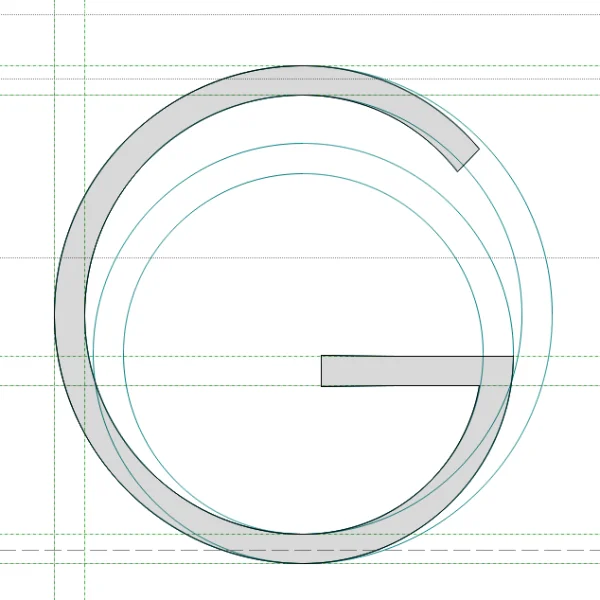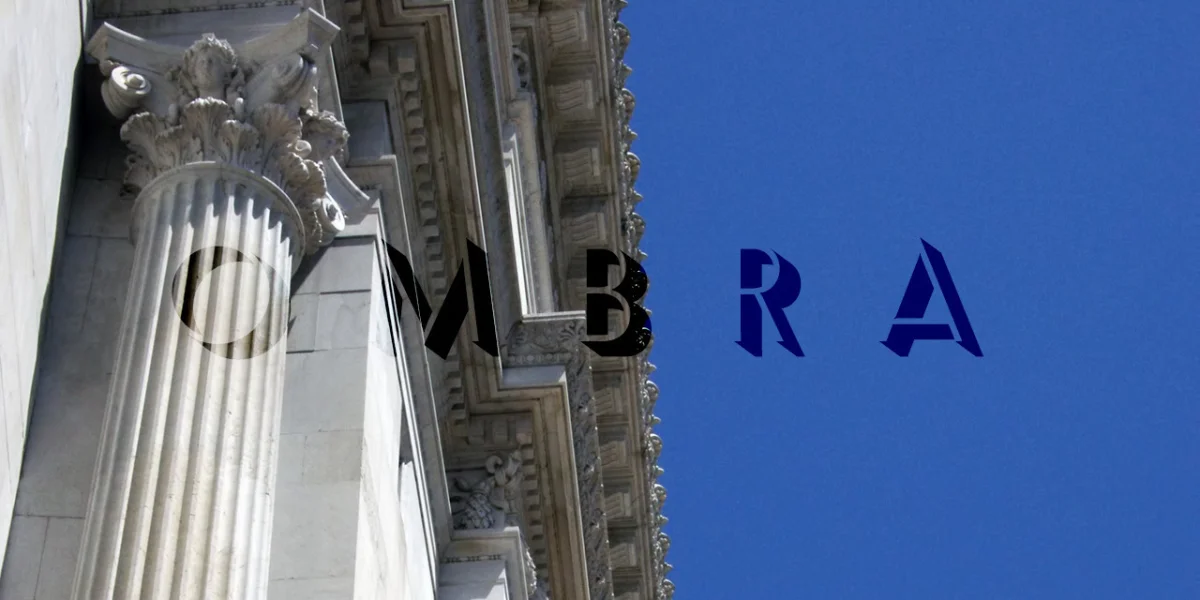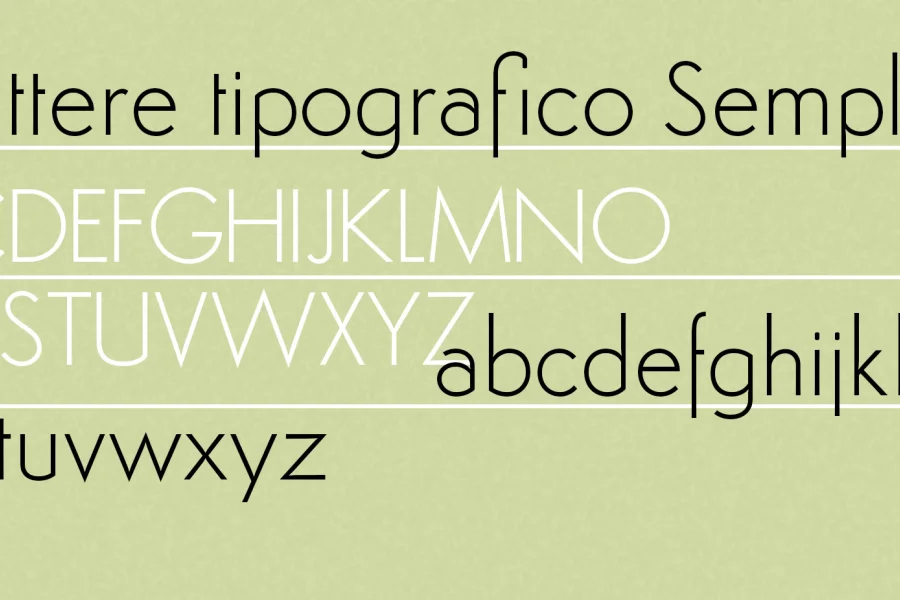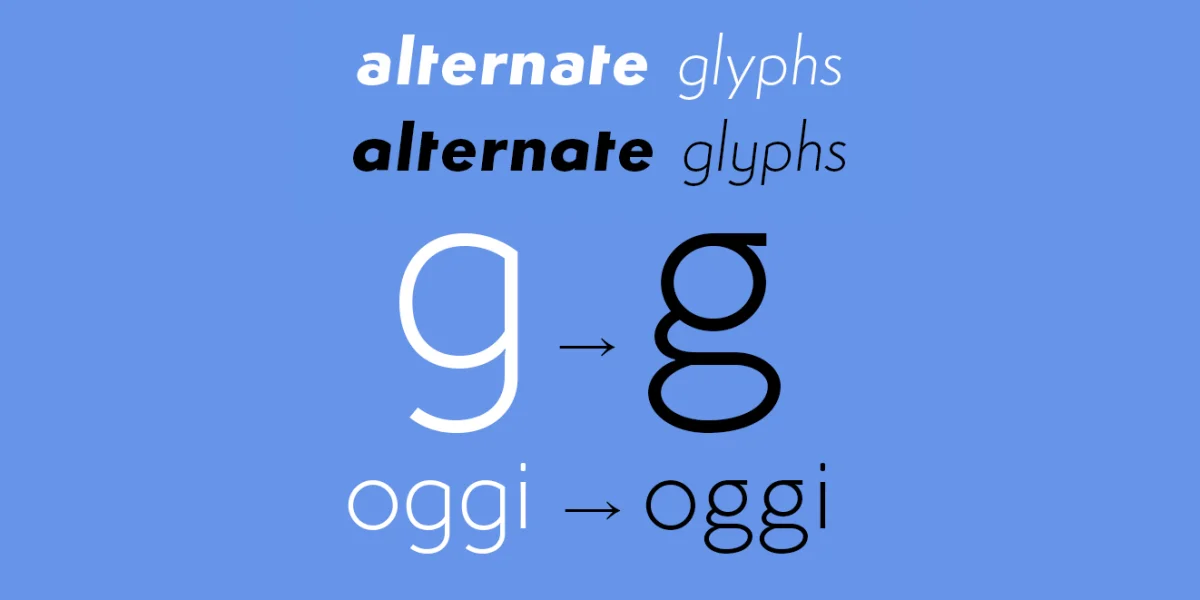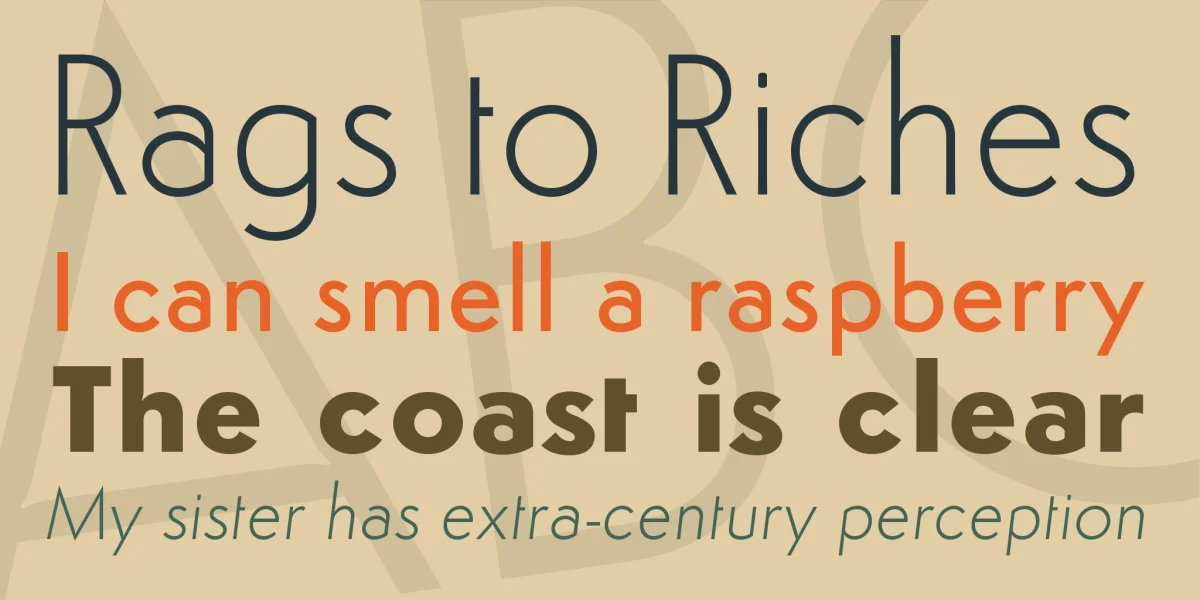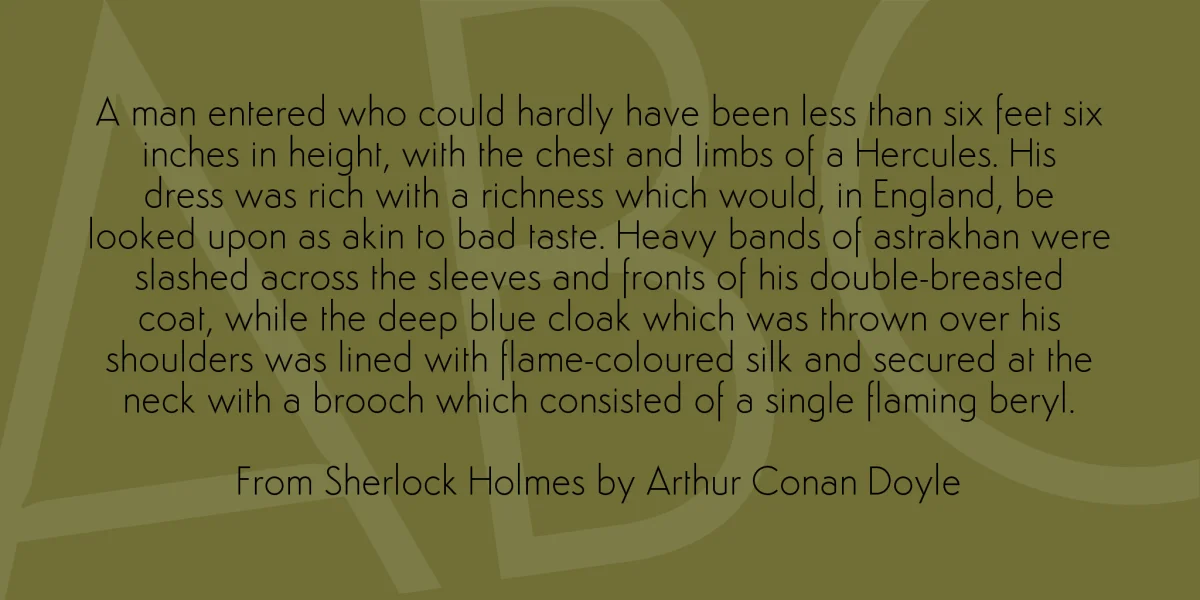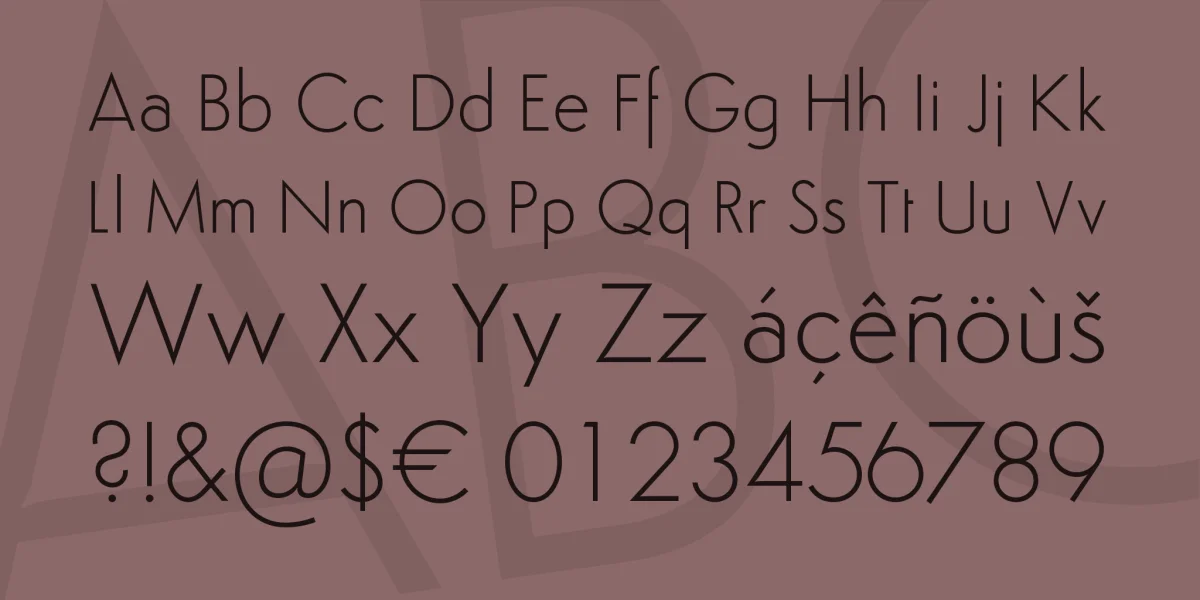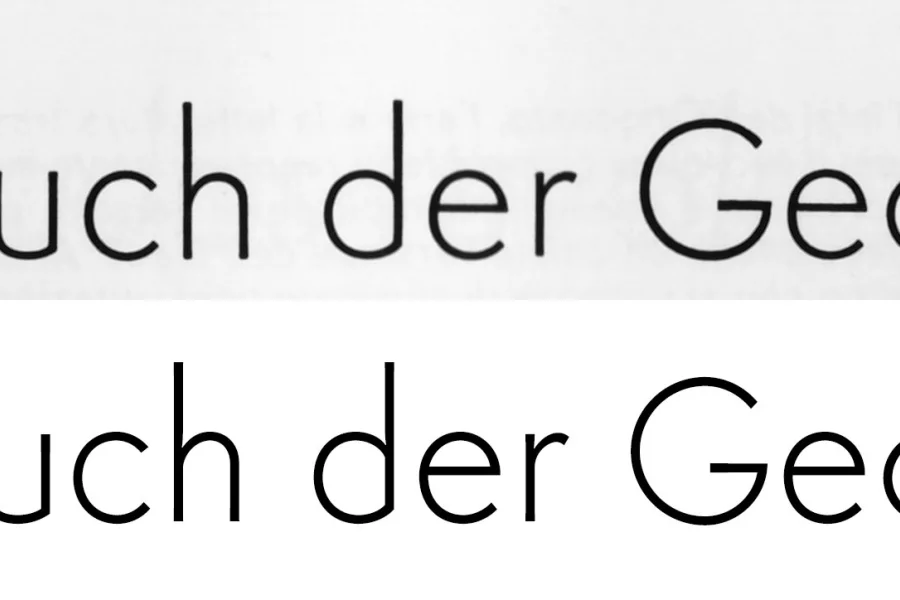
After so many years, finally the famous Semplicità has been digitalized, and in all its variants: Light, Medium and Bold. Semplicità has been created by the prolific designer Alessandro Butti in 1930, for the Nebiolo foundry. My special thanks goes to: Romesh Naik (:Nike) that gave me hope to create this font from original catalogues scans.
Life in general, but also for typefaces, it is always a good idea to have some valid alternatives, especially alternative glyphs. So we decided to add to the historic font Semplicità the new lowercase closed g glyph in roman style, and the Italic lowercase a and y glyphs (version 2.300).
For version 2.400 the Nebiolo company created a new version of Semplicità called Ombra (Shadow in Italian) and attributed to Alessandro Butti or at least to its direction (Butti was in fact the director of the Artistic Studio of Nebiolo).
The Simplicity Shadow uses uppercase glyphs of Semplicità Light, changing some glyphs to improve legibility, adding elongated shadow on the bottom right in the 36,2° direction. The especially modified glyphs are the upper cases S and the lower leg of the K, the 6 and 9.
Version 2.500 has added swash initials of the light series (present in the original 1930s font). The update also contains some glyphs clean up.